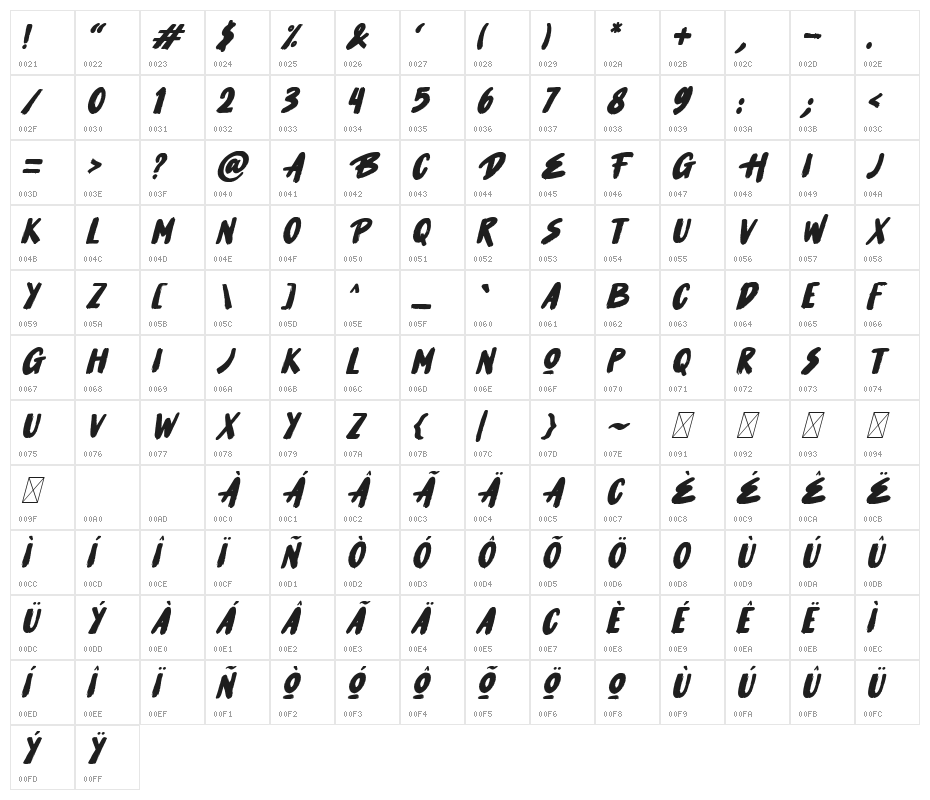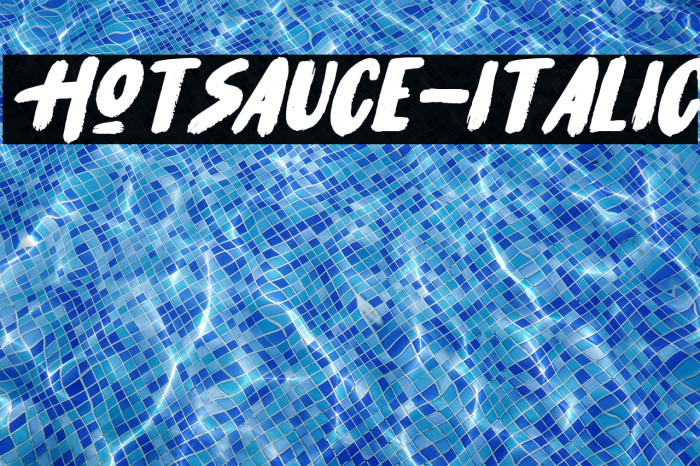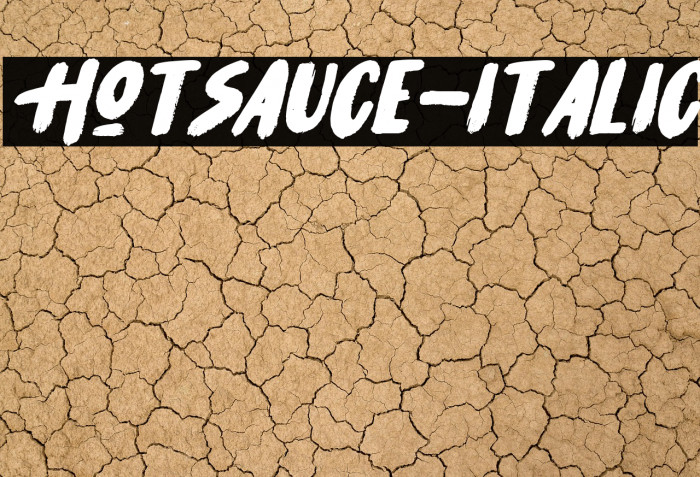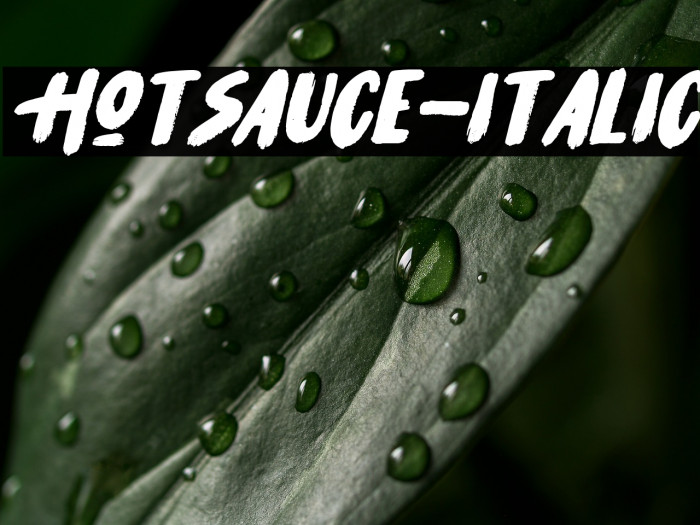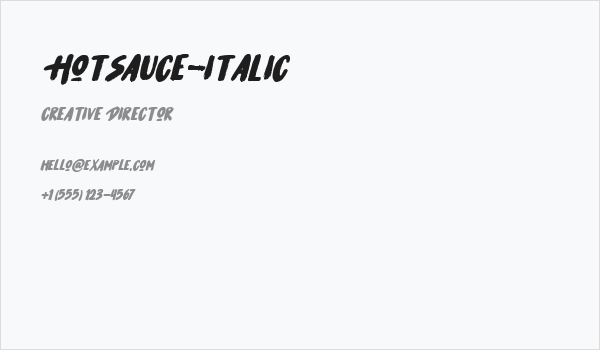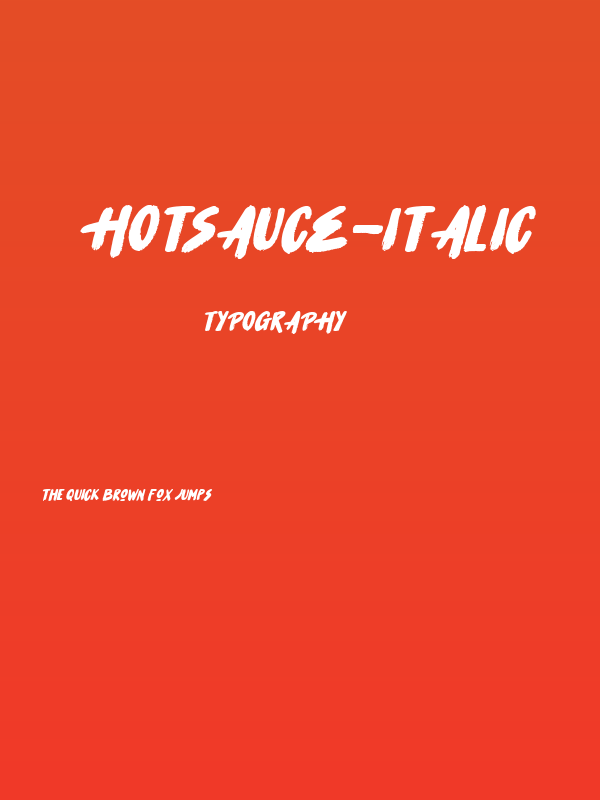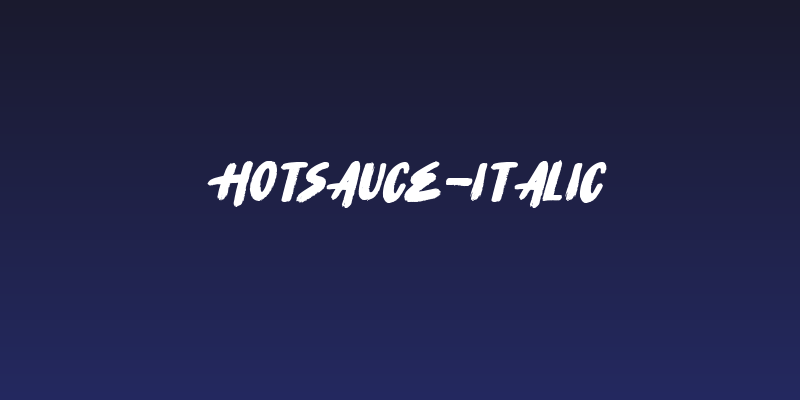
HotSauce-Italic Font
HotSauce-Italic Description
This font features a bold and energetic brush script style, characterized by its dynamic and fluid strokes. The letters have a hand-painted appearance, giving them a lively and informal feel. The uppercase and lowercase letters maintain a consistent slant, enhancing the italic nature of the font. The numbers and special characters follow the same bold and expressive style, ensuring uniformity across all glyphs. The overall design is perfect for projects that require a touch of creativity and spontaneity.
| Proposed Projects | Ideal for branding, posters, packaging, and any design that needs a bold, artistic touch. |